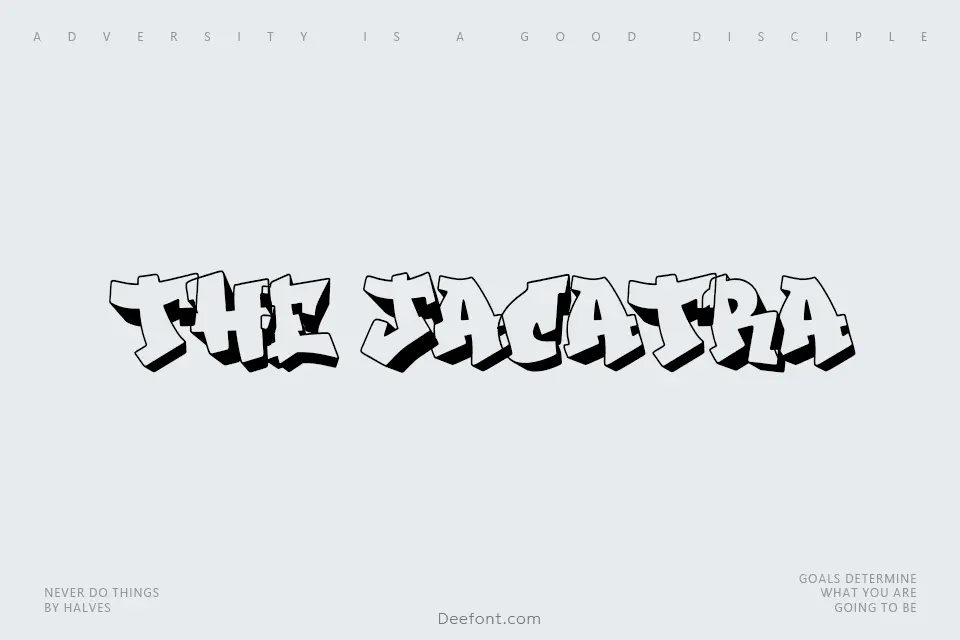
The Jacatra Font
The Jacatra is a dynamic and captivating street-style script font that brings boldness and contemporary flair to any creative project. With its distinctive letterforms and confident strokes, this graffiti-inspired typeface excels as a headline font for posters, branding, editorial designs, and advertising campaigns. The font’s energetic character and urban aesthetic make it an ideal choice for designers seeking to infuse personality, cultural richness, and visual impact into their work. Its versatility extends across print and digital media, making it a valuable addition to any modern typographic toolkit for projects that demand attention and creative expression.